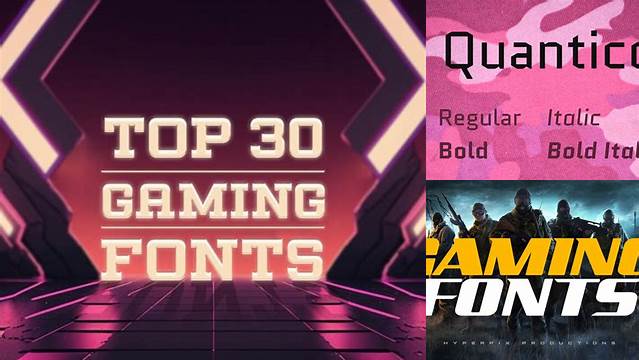
Free Gaming Fonts: Level Up Your Game's Visuals
Are you ready to supercharge your gaming experience, guys? If you're a gamer, streamer, or a content creator in the gaming world, you know that a game's visual appeal is just as important as its gameplay. One of the easiest ways to enhance the look of your game, stream overlays, or gaming-related content is by using cool gaming fonts. And the best part? You can find cool gaming fonts free! Let's dive into the world of typography and explore how these fonts can take your gaming visuals to the next level. We'll discuss some of the best free gaming fonts available, how to use them effectively, and where to find them. So, buckle up, because we're about to embark on a font-tastic journey!
The Power of Typography in Gaming
Gaming fonts play a huge role in setting the mood, conveying information, and establishing a brand identity. Think about it: the font used in a game's title, menus, or subtitles can instantly communicate whether it's a fantasy epic, a sci-fi thriller, or a casual mobile game. The right font can create an immersive experience, while a poorly chosen one can break the illusion. That's why the choice of font is so critical, my friends!
Cool gaming fonts are more than just letters; they're a visual language. They help:
- Enhance Readability: Clear, legible fonts are crucial for displaying text in game interfaces, chat boxes, and tutorials. If players can't easily read the text, it can lead to frustration and a poor gaming experience.
- Establish a Theme: Fonts can instantly convey a game's genre, tone, and setting. A gothic font might suit a horror game, while a futuristic font would be perfect for a cyberpunk adventure. They help set the scene.
- Create Visual Appeal: A well-chosen font can make your game look more professional and polished. If you're creating a gaming logo, YouTube thumbnails, or streaming overlays, the font can elevate your visual style and attract more viewers.
- Build Brand Identity: A unique font can become a signature element of your brand, making it instantly recognizable. This is important for streamers, esports teams, and game developers, especially to build a loyal audience.
Why Free Gaming Fonts?
So, why choose cool gaming fonts free? Well, the answer is simple, guys. Because who doesn't love free stuff? But beyond the cost, there are several compelling reasons to use them:
- Accessibility: Free fonts make it easier for everyone to create high-quality visuals, regardless of budget. Whether you're an indie game developer or a hobbyist streamer, free fonts provide a level playing field.
- Variety: There's a huge selection of free gaming fonts available, covering a wide range of styles and themes. You're sure to find a font that fits your needs, no matter your game's aesthetic.
- Experimentation: Trying out various free fonts lets you experiment with different styles until you find the perfect match for your project. This allows you to refine your look and make it exactly what you want.
- Font Squirrel: This is another great source, offering a curated selection of high-quality, free fonts. Their fonts are ready for commercial use. They often include a web font version, so you can use them on your website.
- Behance and Dribbble: These platforms host creative portfolios, and you can sometimes find free fonts created by talented designers. This can be a great place to discover unique fonts that are not available elsewhere.
- FontBundles.net: FontBundles offers a selection of free fonts, often with special deals and bundles. You can find some great fonts from this site.
Choosing the right font can feel overwhelming, but fear not! Here are some tips to help you out:
- Consider the Theme: Choose a font that complements the game's genre and aesthetic. A gothic font is good for a horror game and a futuristic font suits a sci-fi game.
- Prioritize Readability: Ensure the font is easy to read, especially in menus, subtitles, and other crucial areas. You don't want to lose players because they can't read the instructions.
- Think About the Audience: Choose a font that resonates with your target audience. For example, if you're making a game for children, you might opt for a playful font.
- Test it Out: Try out the font in your game or design to see how it looks in action. This allows you to catch any issues with readability or visual appeal.
- Keep it Consistent: Use a consistent font throughout your game or design to maintain a cohesive look. Don't use too many different fonts; it can be distracting.
Best Free Gaming Fonts to Download
Here are some examples of cool gaming fonts free to get you started:
- Bebas Neue: This is a popular sans-serif font known for its clean lines and modern look. It's great for titles and headings.
- Raleway: This is a versatile sans-serif font that is both elegant and readable. It works well for body text and headings.
- Oswald: A condensed sans-serif font is perfect for displays and headings, especially if you want a bold look.
- Luckiest Guy: This playful, rounded font is perfect for casual games or content aimed at a younger audience. It's full of personality!
- Press Start 2P: This pixelated font is designed to mimic the look of old-school arcade games. It's great for creating a retro vibe.
- Audiowide: Designed to evoke futuristic and technological themes.
- Roboto: A modern sans-serif font, perfect for readability.